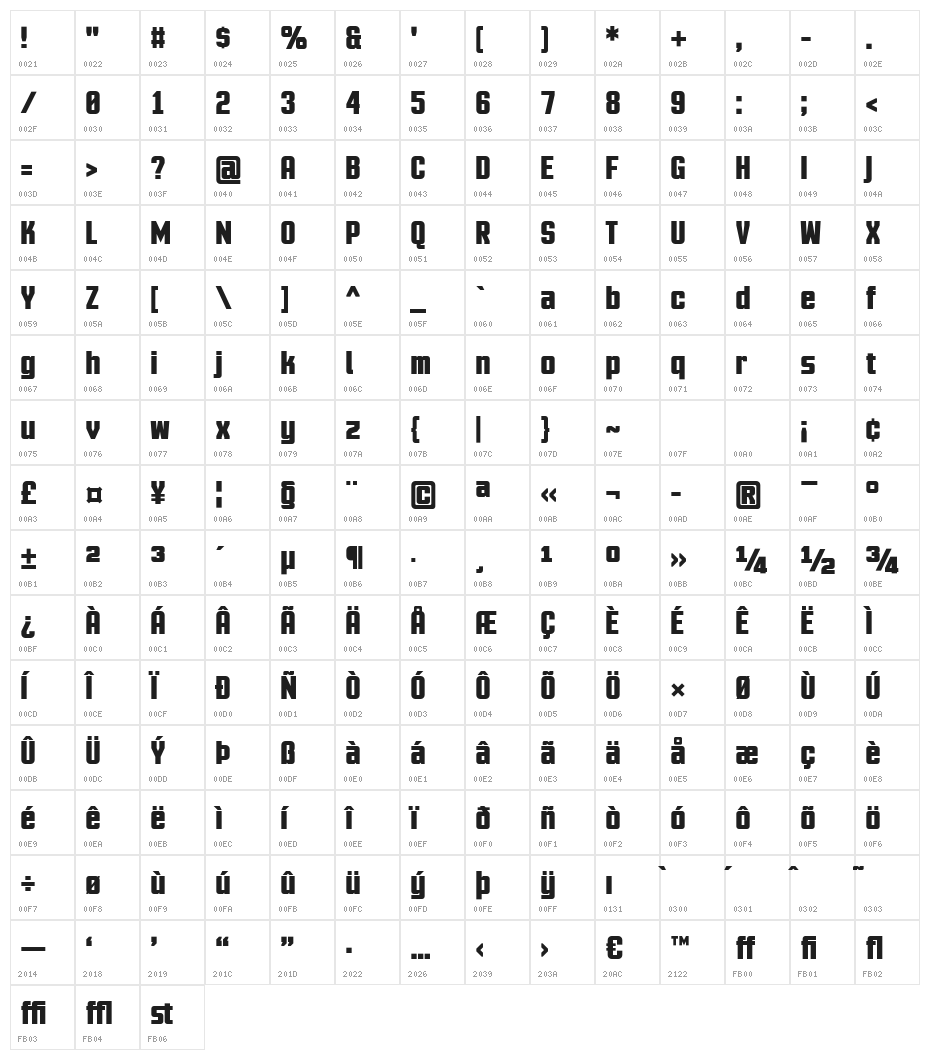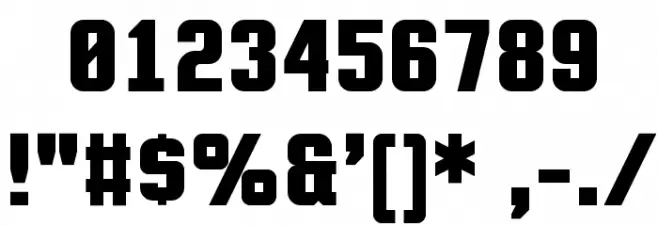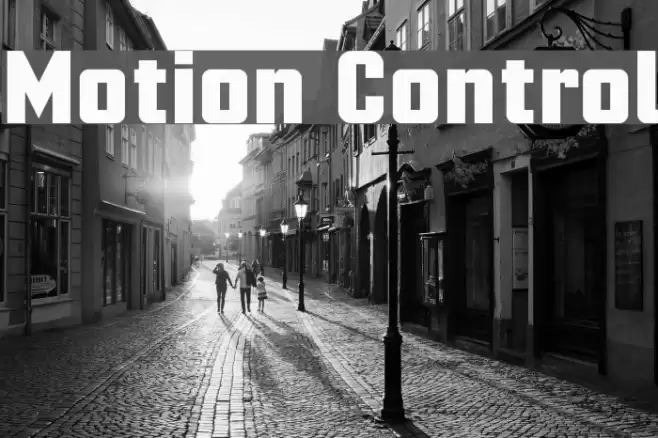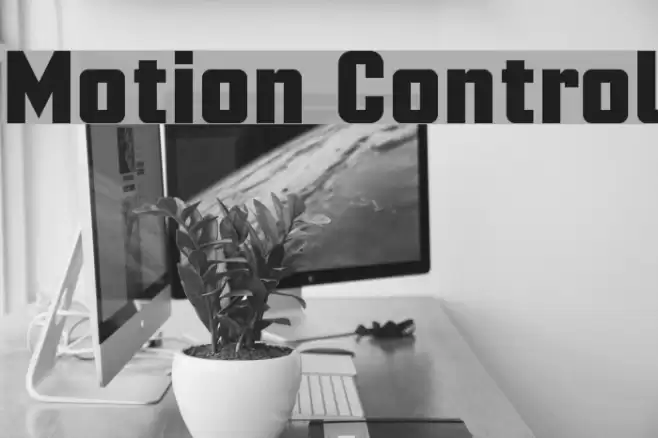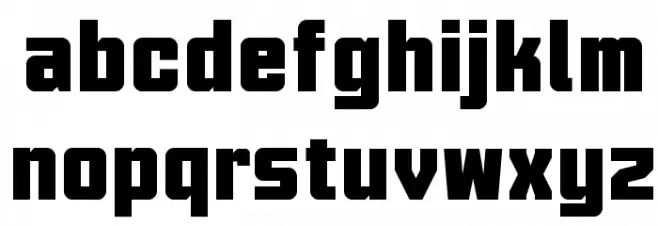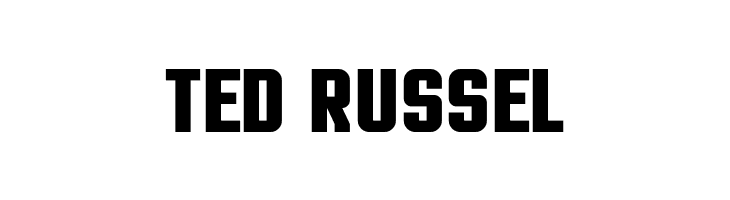
Motion Control Font
Motion Control Description
This font features a bold, geometric design with strong, angular lines and a modern aesthetic. The uppercase letters are particularly striking, with a blocky appearance that conveys strength and stability. The lowercase letters maintain the same boldness, ensuring consistency across different text cases. Numbers and special characters are designed with the same attention to detail, making them highly legible and visually appealing. The font's overall style is assertive and impactful, suitable for making a strong visual statement.
| Proposed Projects | Ideal for branding, headlines, posters, and any project requiring a strong visual impact. |